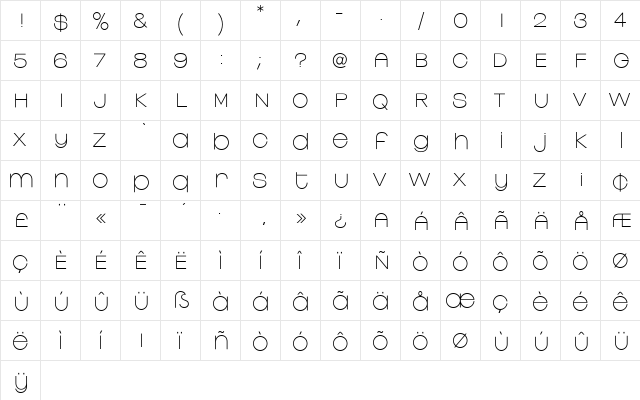
LinearEF Regular Font Preview
LinearEF Regular
Design Context for LinearEF Typeface
LinearEF offers clean, dependable letterforms without strong stylistic allegiance, making it a practical choice for designers who need flexibility.
Pro Tip: Pair LinearEF with a font of contrasting weight or personality to build a more expressive typographic hierarchy.